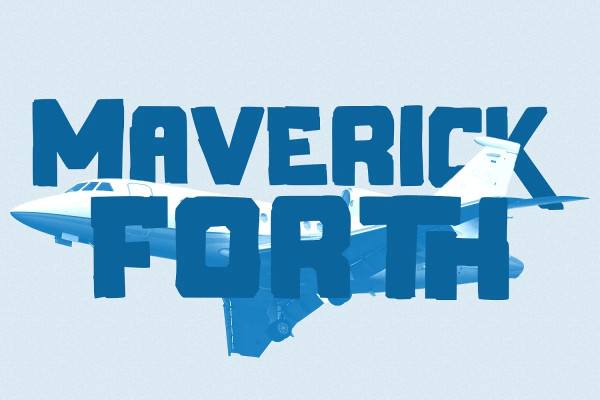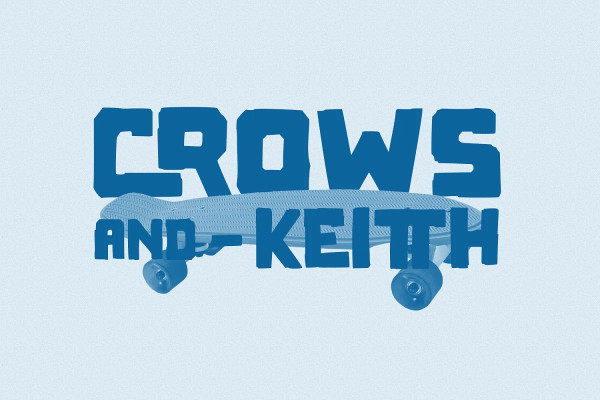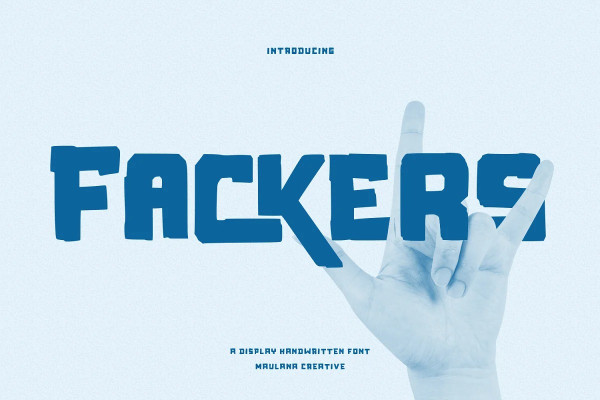
Fackers Display Font
Fackers Display Font is a casual handwritten font. With bold rough stroke, fun character with a bit of ligatures and alternates. To give you an extra creative work. Fackers Display font support multilingual more than 100+ language. This font is good for logo design, Social media, Movie Titles, Books Titles, a short text even a long text letter and good for your secondary text font with sans or serif. Make a stunning work with Fackers font.